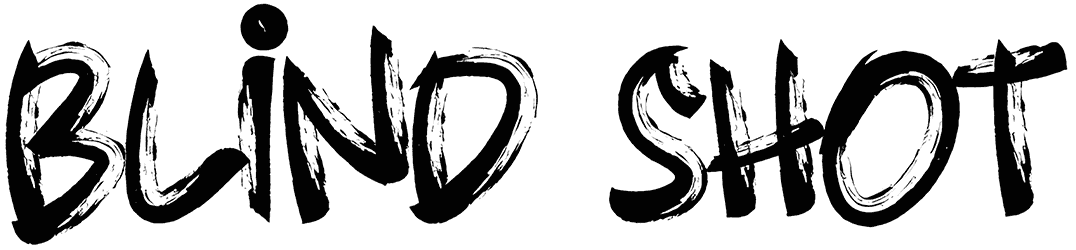
Blind Shot Font
When your design needs a casual and urban mood, a brush font like the present offer would be interesting for you. The Blind Shot font has a realistic and cool form that is going to add a charming vibe to your creative layout. This script font doesn’t consist of lowercase letters, but you can count on it to create a memorable face for your art gallery advertising.